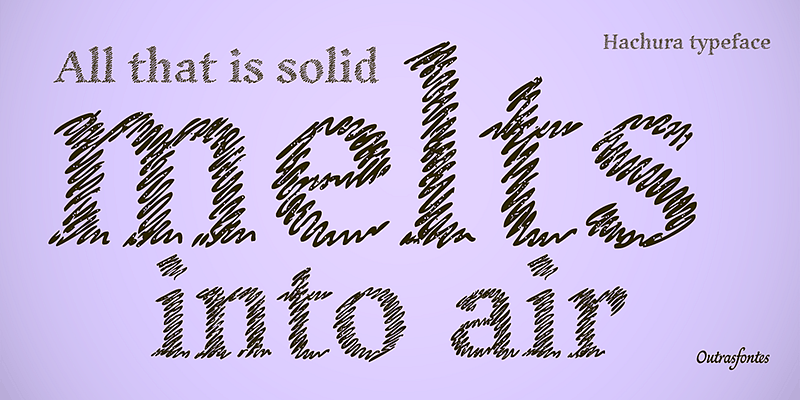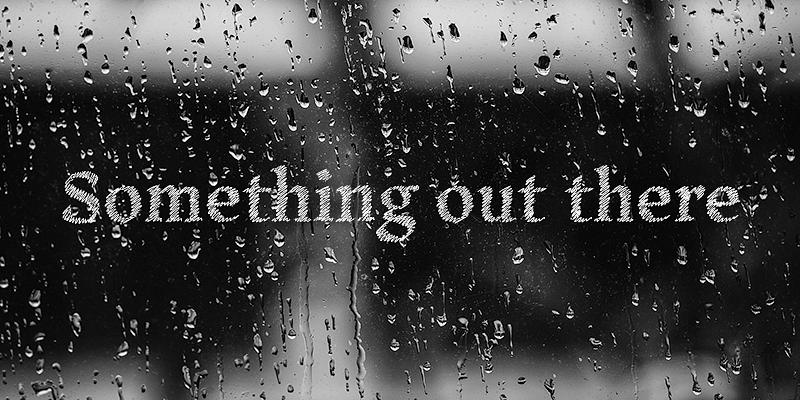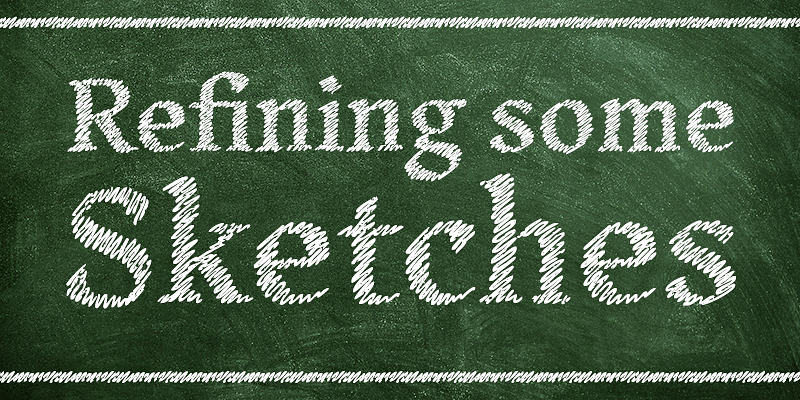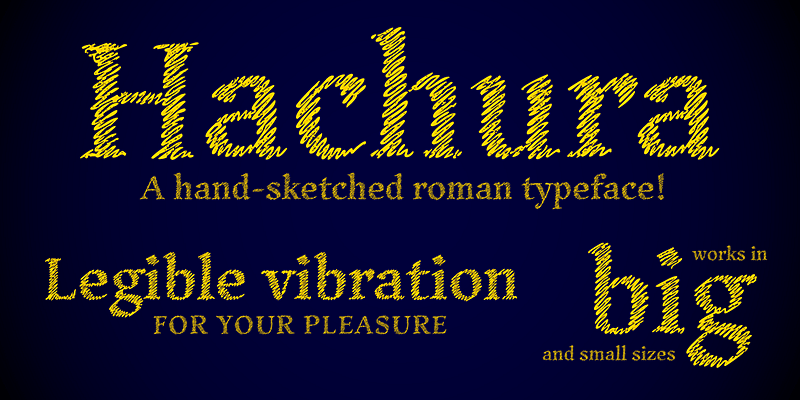
Hachura is a sketchy typeface designed by Ricardo Esteves. Its general proportions are based on the garalde models, with traditional roman serifs. It was initially made by hand using a drawing technique to create a font that simulates the unfinished aspect of a work in constant progress. This textured face is useful for display sizes, making a very visible presence. Because of its basic dimensions and careful distribution of black and white, it still also very readable in text sizes like 10 or 8 points.